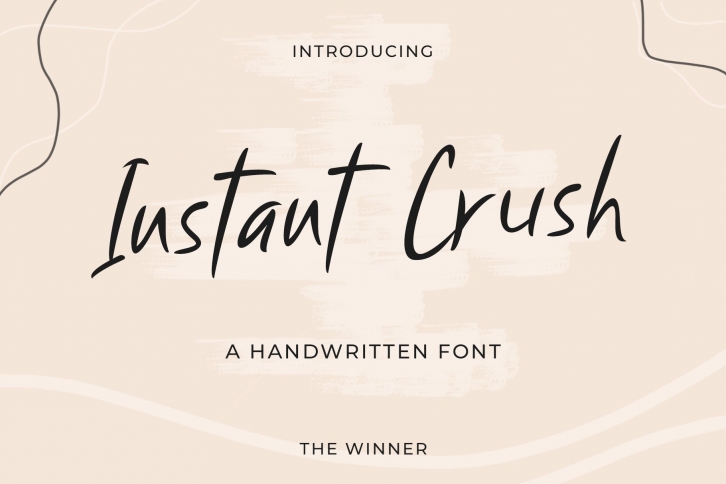
Instant Crush is a simple and adaptable handwritten font. It features natural and clean characters and as a result, it will be a fit for a wide range of creations.